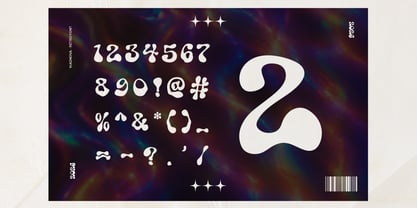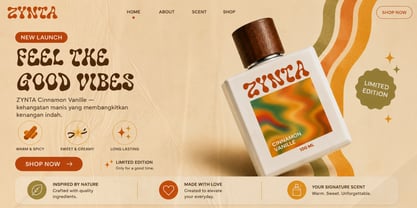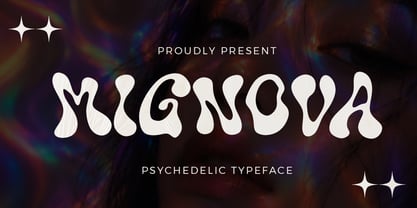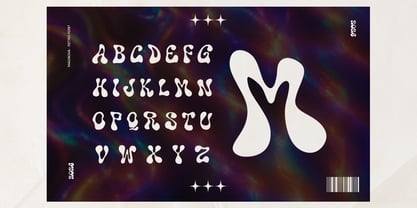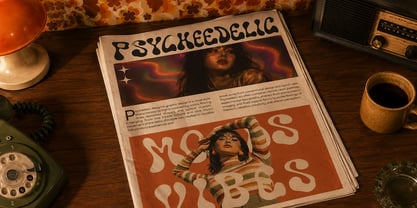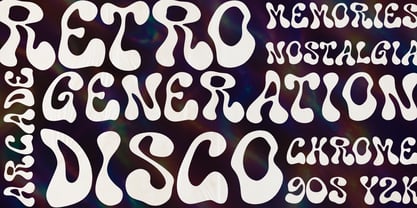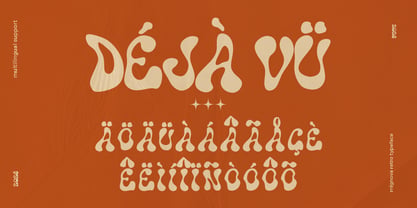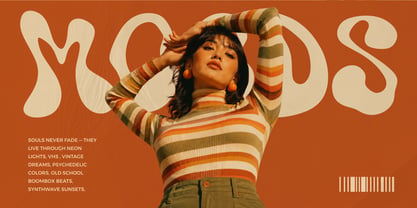
Mignova
Mignova is a psychedelic wavy groovy retro font inspired by the iconic visual culture of the 1960s and 1970s. Featuring flowing organic curves, melting shapes, funky rhythm, and artistic retro aesthetics, this typeface delivers expressive typography filled with nostalgic personality and bold visual energy.
Designed to capture the spirit of psychedelic posters, groovy music festivals, vintage album artwork, retro advertising, and colorful artistic movements, Mignova transforms ordinary text into visually striking compositions with playful artistic character.
The unique letterforms combine fluid motion with bold display styling, creating typography that feels dynamic, dreamy, and memorable. Each character was carefully designed to maintain readability while embracing the experimental freedom of psychedelic and groovy design culture.
Mignova is suitable for:
• Psychedelic Posters
• Retro Branding
• Music Festival Artwork
• Vintage Packaging
• Album Covers
• Fashion Campaigns
• Editorial Headlines
• Artistic Logos
• Merchandise Design
• Social Media Graphics
• Creative Advertising
• Event Promotions
• Digital Posters
• Experimental Typography
• Vintage-Themed Projects
Features
• Uppercase Characters
• Lowercase Characters
• Numbers & Punctuation
• Multilingual Support
• Psychedelic Wavy Style
• Funky Retro Character
• Organic Letterforms
• Artistic Typography Design
• Bold Display Structure
• Groovy Visual Personality
The flowing psychedelic curves create natural movement and artistic rhythm that instantly attract attention. Mignova works beautifully in oversized headlines, retro-inspired branding systems, colorful layouts, music visuals, and artistic promotional materials.
Its groovy aesthetic is heavily inspired by vintage psychedelic design trends, retro concert posters, classic vinyl artwork, and experimental typography movements from the golden era of artistic expression.
The wavy shapes create an organic handcrafted feel that makes every word appear unique and expressive. Combined with modern typography structure, Mignova offers both nostalgic atmosphere and contemporary usability for creative projects.
The multilingual support expands creative flexibility across multiple languages, while numbers and punctuation help complete professional typography systems for branding, editorial, and promotional compositions.
Mignova is highly suitable for creative industries that require strong visual identity and artistic typography. Whether used for fashion branding, retro product packaging, music promotions, festival campaigns, or experimental design layouts, the font creates memorable visual impact with authentic psychedelic character.
The bold artistic forms also work exceptionally well for:
• Vintage Logos
• Groovy Headlines
• Retro Websites
• Funky Posters
• Artistic Presentations
• Colorful Packaging
• Creative Merchandise
• Digital Artwork
• Editorial Covers
• Social Media Campaigns
Mignova brings together nostalgic retro atmosphere and modern design flexibility. The organic curves and funky visual rhythm create typography that feels expressive, emotional, and visually rich.
Inspired by psychedelic art culture, retro typography trends, and groovy visual expression, this font transforms typography into a vibrant artistic experience filled with movement and creativity.
Perfect for designers seeking unique retro-inspired display typography with psychedelic personality, funky aesthetics, and strong artistic presence.